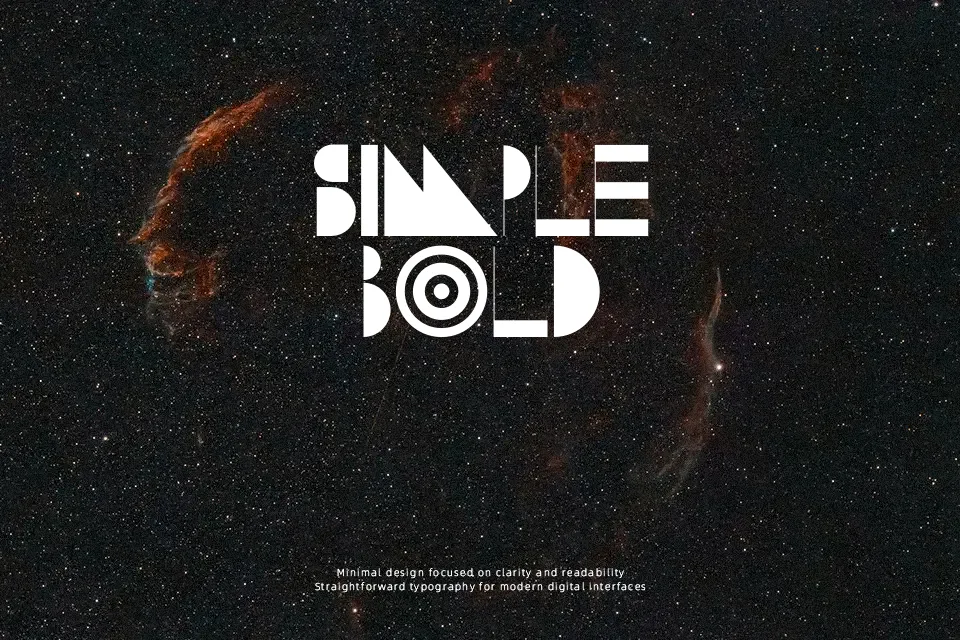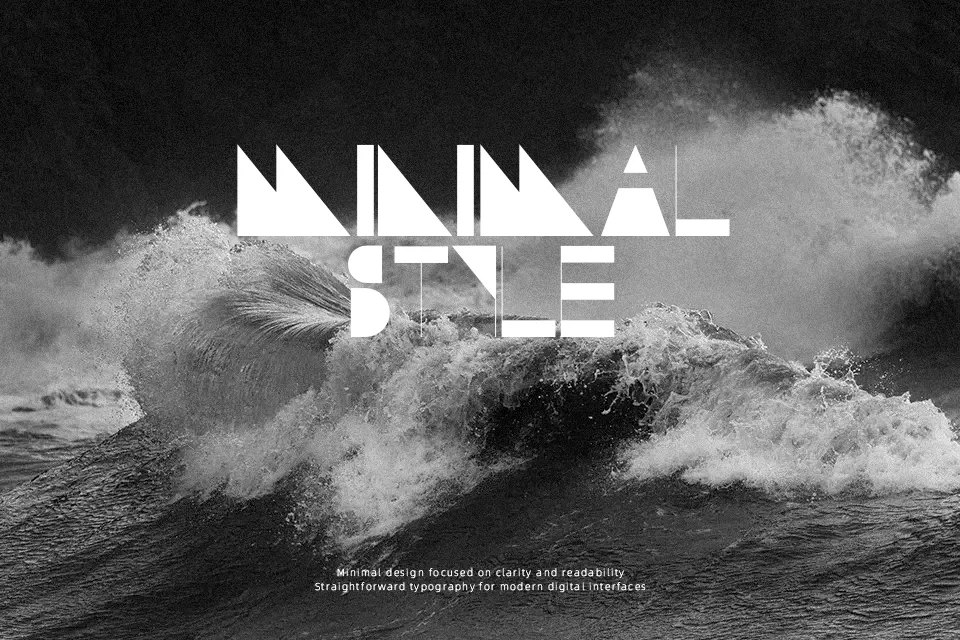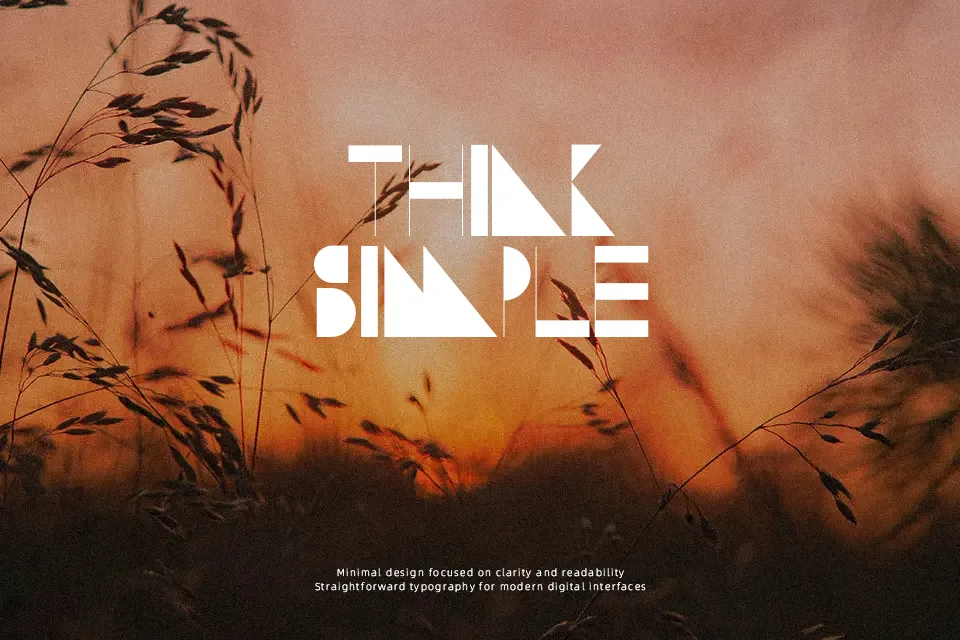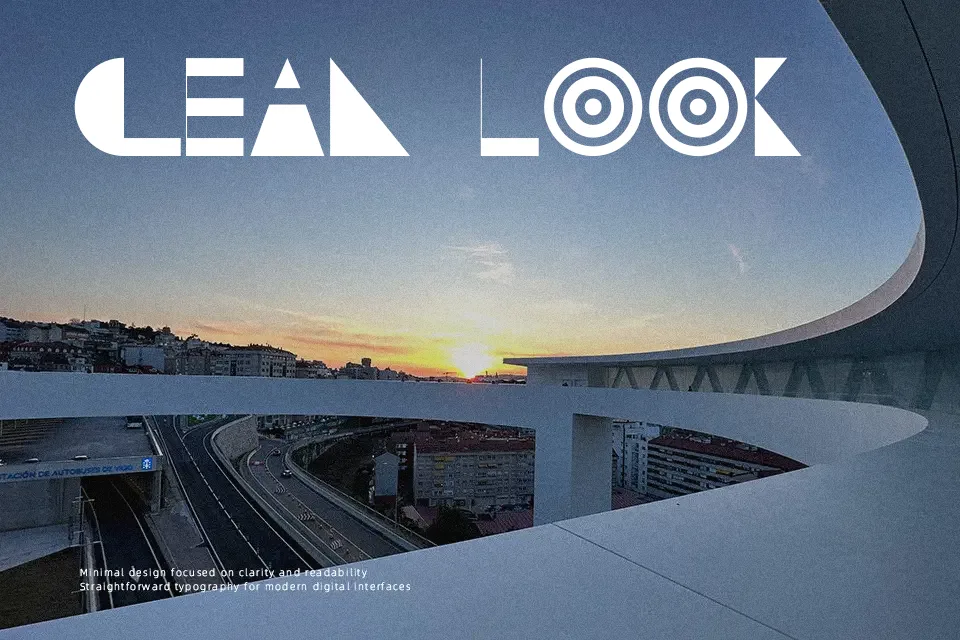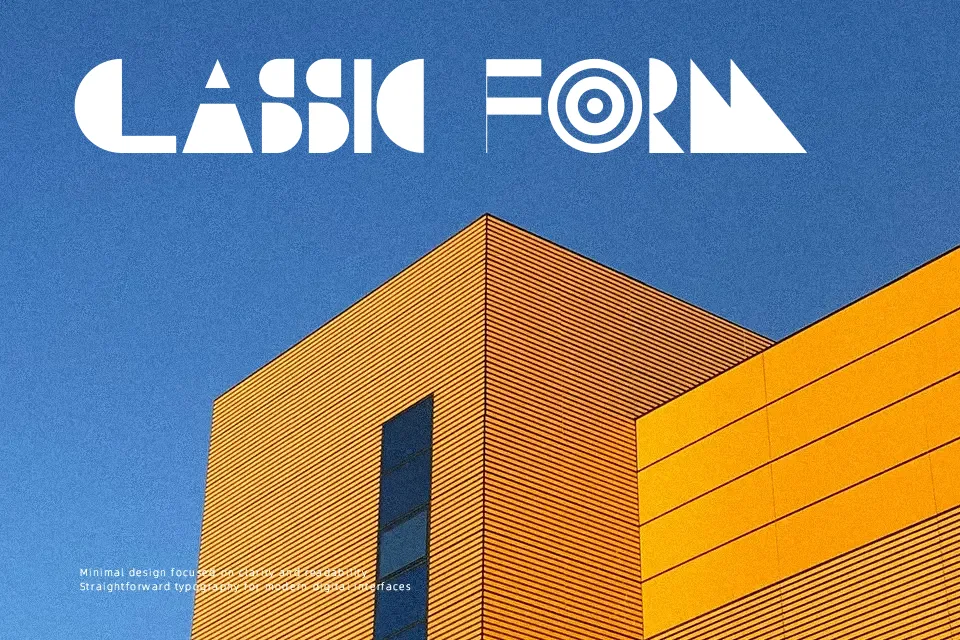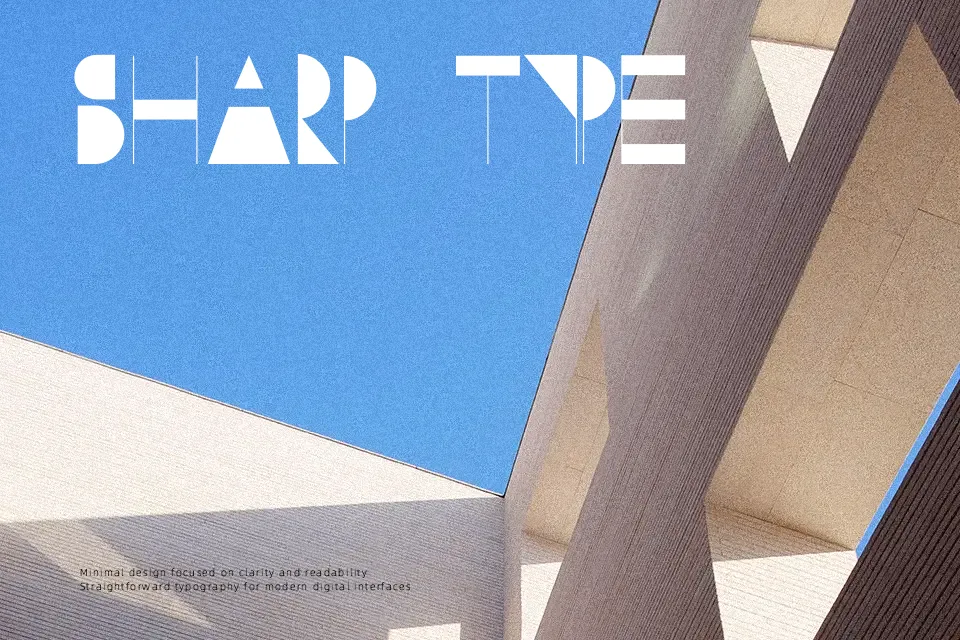
Subversion Display Font
Designed by Daniel McShee
Subversion Display Font delivers an assertive geometric architecture characterized by heavy, block-like strokes and sharp angular cutouts. The typeface features tight character spacing and compact horizontal proportions, creating an intense visual rhythm across short titles. While letterforms remain distinct in large headline formats, the dense structural weight and reduced internal counters significantly limit legibility at smaller scales. Extended body text becomes visually cluttered, making the design less suitable for continuous editorial layouts. The robust stroke thickness ensures maximum impact on music festival posters, video game covers, and streetwear graphics where dramatic display presence is essential.
Best For: music festival posters, apparel graphics, video game packaging, website hero headlines
Not Ideal For: long paragraph text, dense editorial layouts, mobile app body copy, technical documentation